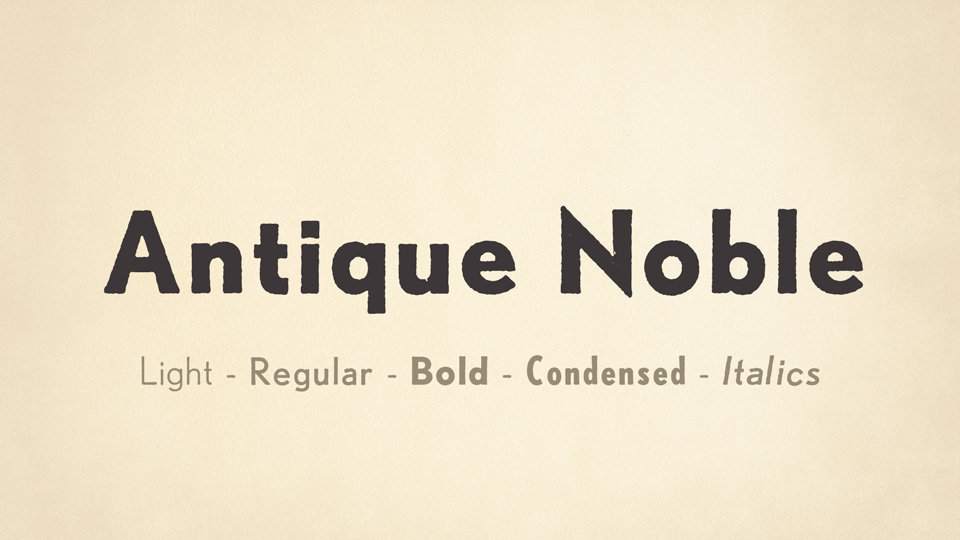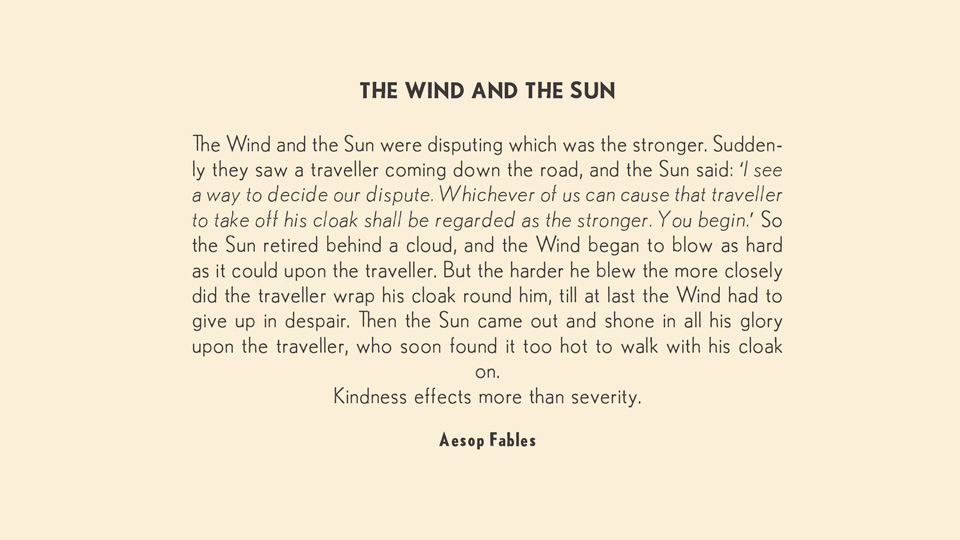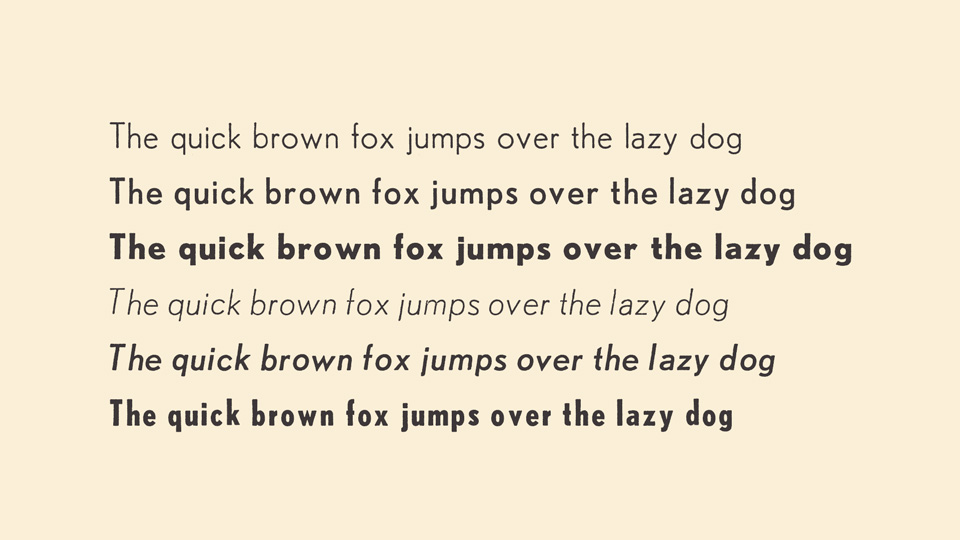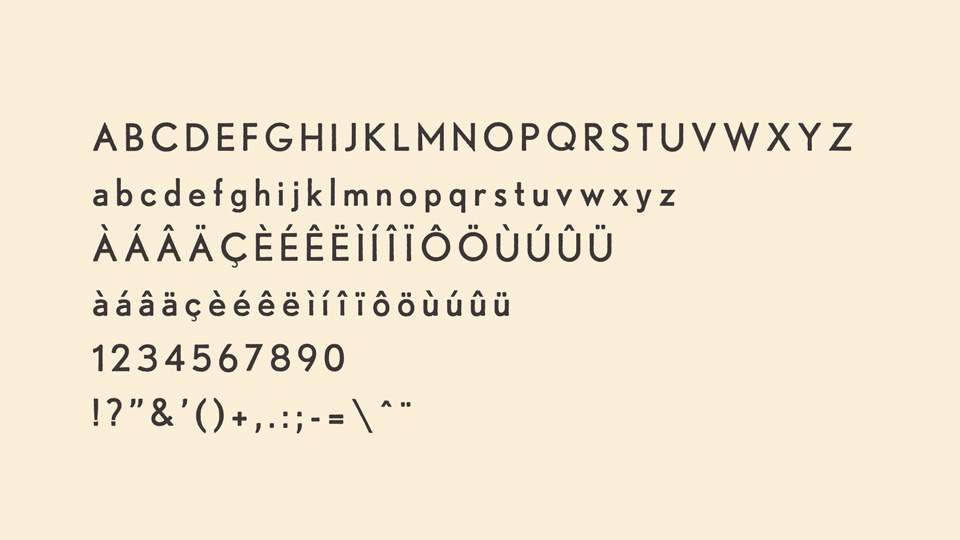
Antique Noble Font
Antique Noble is a vintage sans serif font family in three weights with Italics and conldensed style.
Antique Noble is a revival of old printing typeface that has been created in 2015 during Open it ! Root & typography workshop.